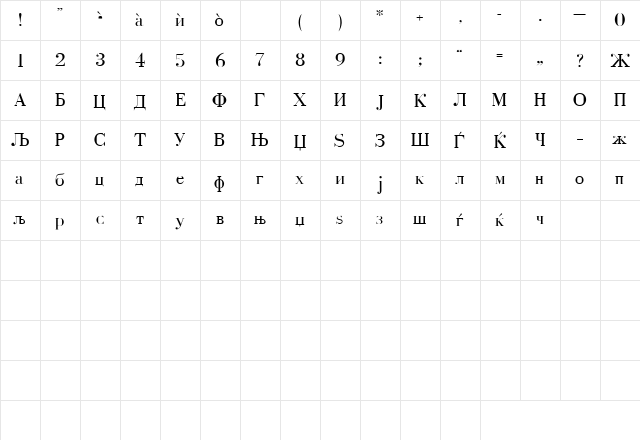
Mak_Bodoni_kirilica Regular
Design Context for Mak_Bodoni_kirilica Typeface
Mak_Bodoni_kirilica is a composed and adaptable typeface that performs quietly and consistently across a wide range of design contexts.